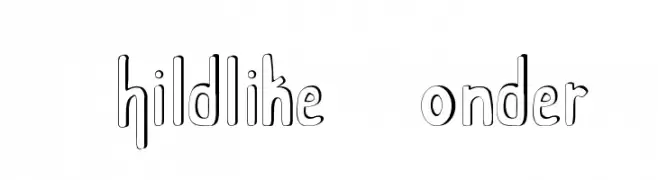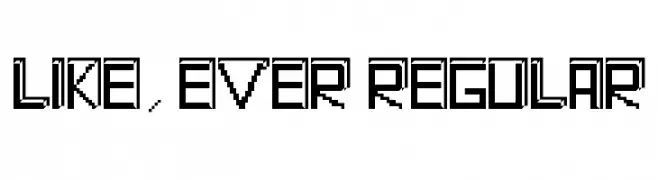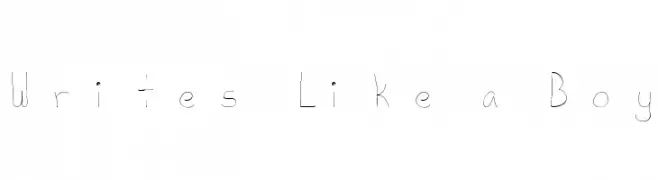
Whimsical, childlike dingbat font with playful illustrations.
Hand-drawn cartoon dingbat font with playful, childlike illustrations.
A playful, hand-drawn font with a whimsical and dynamic style.
A playful, handwritten font with rounded, consistent strokes and a casual vibe.
Ornamental, tattoo-inspired decorative glyph set with tribal motifs.
A bold, dynamic font with sharp, angular edges and a playful, cartoonish style.
A playful, handwritten font with a tall, narrow structure and consistent stroke thickness.
A bold, distressed font with a grunge, weathered appearance.
A distressed, grunge-style font with a textured, rugged appearance.
A playful, handwritten font with smooth curves and a casual style.
A classic serif font with a modern touch, offering elegance and readability.
A playful, hand-drawn font with a casual and friendly appearance.
A serif typeface with angular, sharp serifs and a strong, structured appearance.
A bold, playful handwritten font with rounded strokes and a modern touch.
A playful, retro-inspired font with tall, narrow characters and rounded edges.
A futuristic, geometric font with interconnected lines and a sleek design.
A playful, hand-drawn font with a whimsical and informal style.
A playful, hand-drawn font with decorative elements and a whimsical style.
A playful, decorative font with whimsical accents and bold characters.
A bold, playful, and decorative hand-drawn font with unique embellishments.
A bold, playful font with a hand-drawn, whimsical aesthetic.